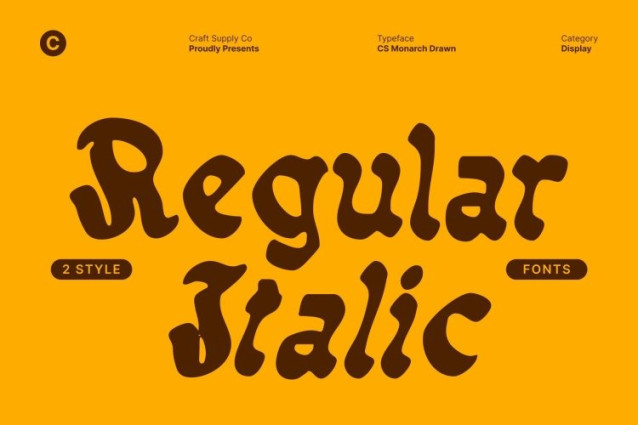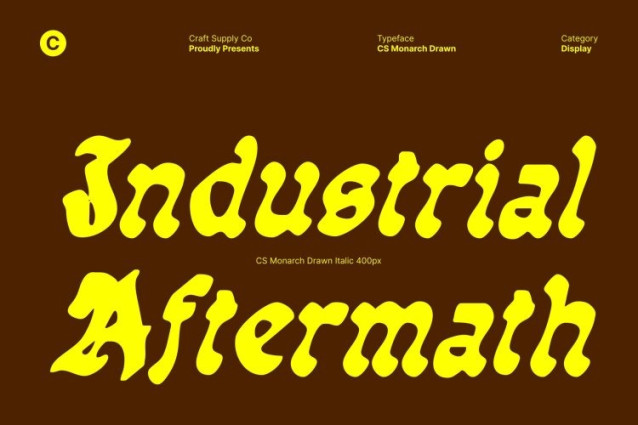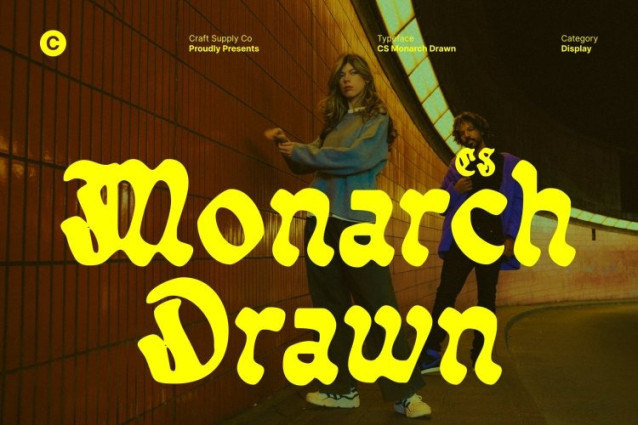
CS Monarch Drawn Font
CS Monarch Drawn Font This is a blackletter display font that reimagines bold tradition through a contemporary and refined lens. Rooted in classic Gothic typography, this font preserves the ornamental richness and historic strength of blackletter while introducing cleaner structures and a subtle hand-drawn texture. The result is a typeface that feels regal, expressive, and visually powerful, yet accessible for modern design applications.
Classic Heritage with Contemporary Precision
This font balances historical character with modern clarity. Its angular strokes, sharp terminals, and structured forms echo traditional blackletter craftsmanship, while refined proportions and controlled detailing ensure improved readability and versatility. The drawn effect adds organic imperfections that soften the rigidity of classic forms, giving the font a handcrafted, artistic presence without losing its authoritative tone.
Bold, Elegant, and Commanding Presence
Designed to command attention, delivers a strong visual impact through its bold weight and architectural construction. The font conveys authority, confidence, and sophistication, making it ideal for designs that require a dramatic yet polished voice. Its elegant strength allows it to stand out in display settings while maintaining a sense of refinement and prestige.
Versatile for Statement-Making Modern Design
Despite its historical roots, adapts seamlessly to contemporary creative needs. It performs beautifully in logos, editorial headlines, fashion branding, posters, album covers, book titles, and distinctive packaging.